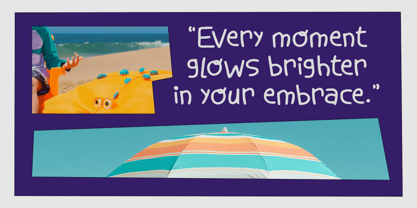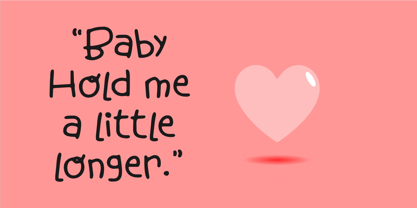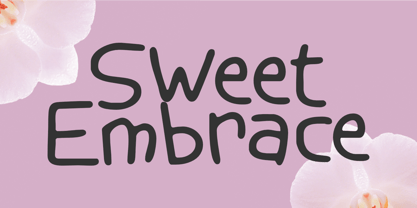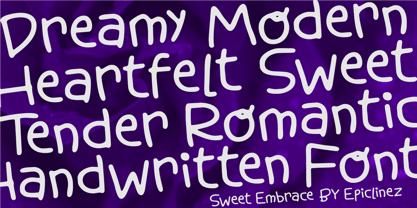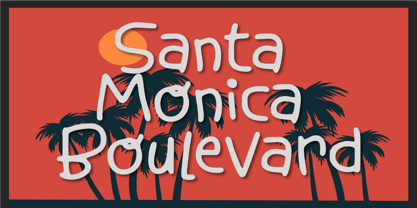
Sweet Embrace
by Epiclinez
The Sweet Embrace Font Family was designed by Aldy Sidik and published by Epiclinez. Sweet Embrace contains 1 styles. More about this family
Sweet Embrace is a romantic handwritten script that captures the warmth of love in every curve. Each letter flows gracefully, creating a natural handwritten look that feels personal and heartfelt. With its soft strokes and gentle swashes, this font embodies affection, tenderness, and timeless beauty — just like a handwritten love note. Perfect for wedding invitations, love quotes, greeting cards, and feminine logos that require a touch of elegance and emotion. Sweet Embrace brings softness and sincerity to every design, making your words feel like they’re wrapped in a hug. Let your designs speak the language of love — softly, sincerely, and beautifully — with Sweet Embrace.